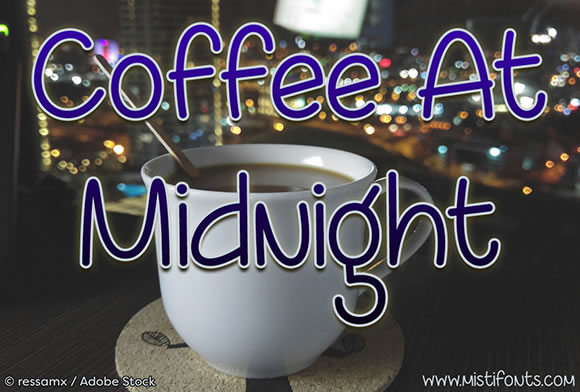
Coffee at Midnight Font
Font Name : Coffee at Midnight Font
Author : Misti
**Dive into a World of Refined Elegance with Coffee at Midnight Font**
Indulge in the captivating charm of Coffee at Midnight, a mesmerizing handwritten font meticulously crafted to elevate your designs to unparalleled heights. Its elegant strokes, reminiscent of a midnight sky adorned with twinkling stars, exude an air of sophistication that will leave a lasting impression on your audience.
**Unleash Your Creativity with Limitless Versatility**
Coffee at Midnight transcends the boundaries of ordinary fonts, offering a kaleidoscope of possibilidades for your design aspirations. From alluring headings that command attention to eye-catching logos that leave an unforgettable mark, this font empowers you to express your creativity with unparalleled freedom. Whether it's a vintage-inspired wedding invitation, a trendy t-shirt design, or a captivating book cover, Coffee at Midnight gracefully adapts to your every whim.
**Craft Designs that Captivate the Senses**
Prepare to be captivated by the enchanting allure of Coffee at Midnight's meticulously crafted strokes. Each letter is a masterpiece of calligraphy, infused with a subtle touch of whimsy that dances across your designs. Its organic flow and enchanting imperfections evoke a sense of warmth and authenticity, drawing your audience into a realm of timeless beauty.
**Embark on a Journey of Endless Inspiration**
With Coffee at Midnight, the possibilities are as endless as the starry night sky itself. Let your imagination soar as you explore its boundless potential. From modern masterpieces to nostalgic throwbacks, this font seamlessly adapts to your unique vision, empowering you to create designs that resonate with your audience on an emotional level.
**Experience the Magic of Midnight Glamour**
Experience the transformative power of Coffee at Midnight, where your designs will blossom into captivating works of art. Its ethereal beauty will effortlessly elevate your creations to new heights of sophistication, leaving your audience mesmerized by the allure of midnight glamour.